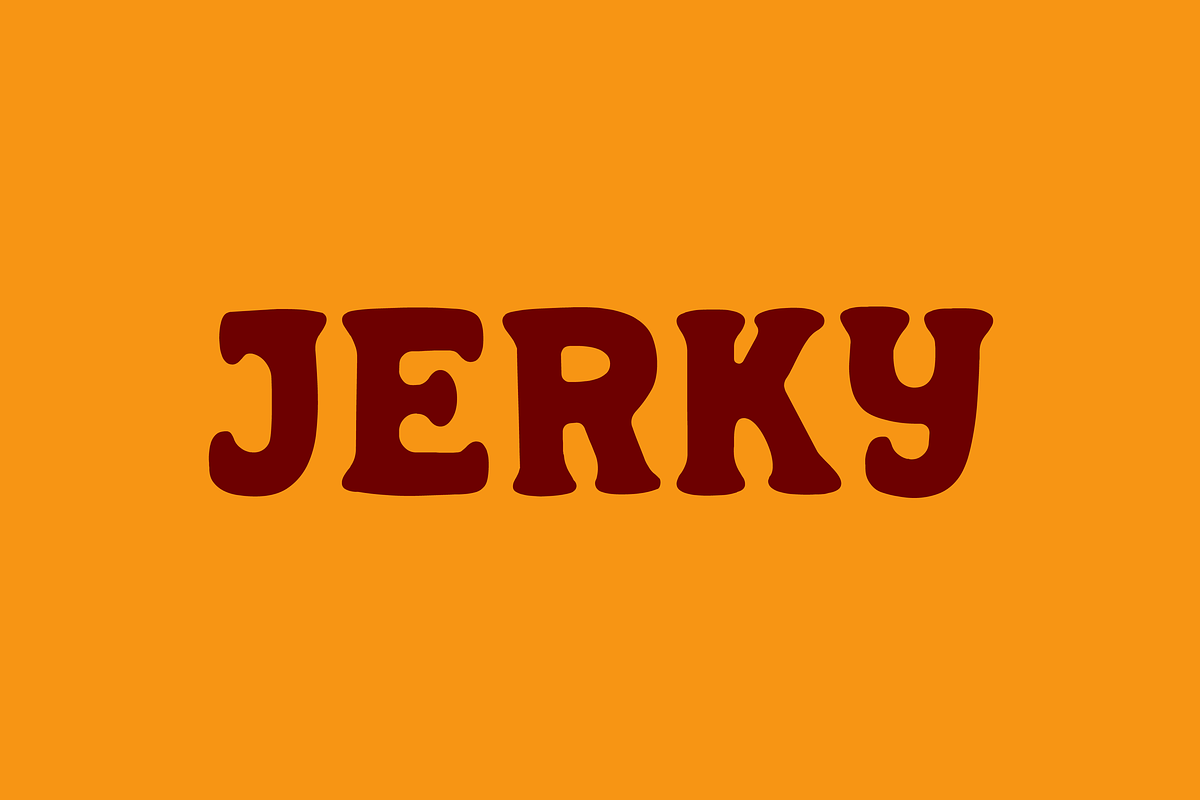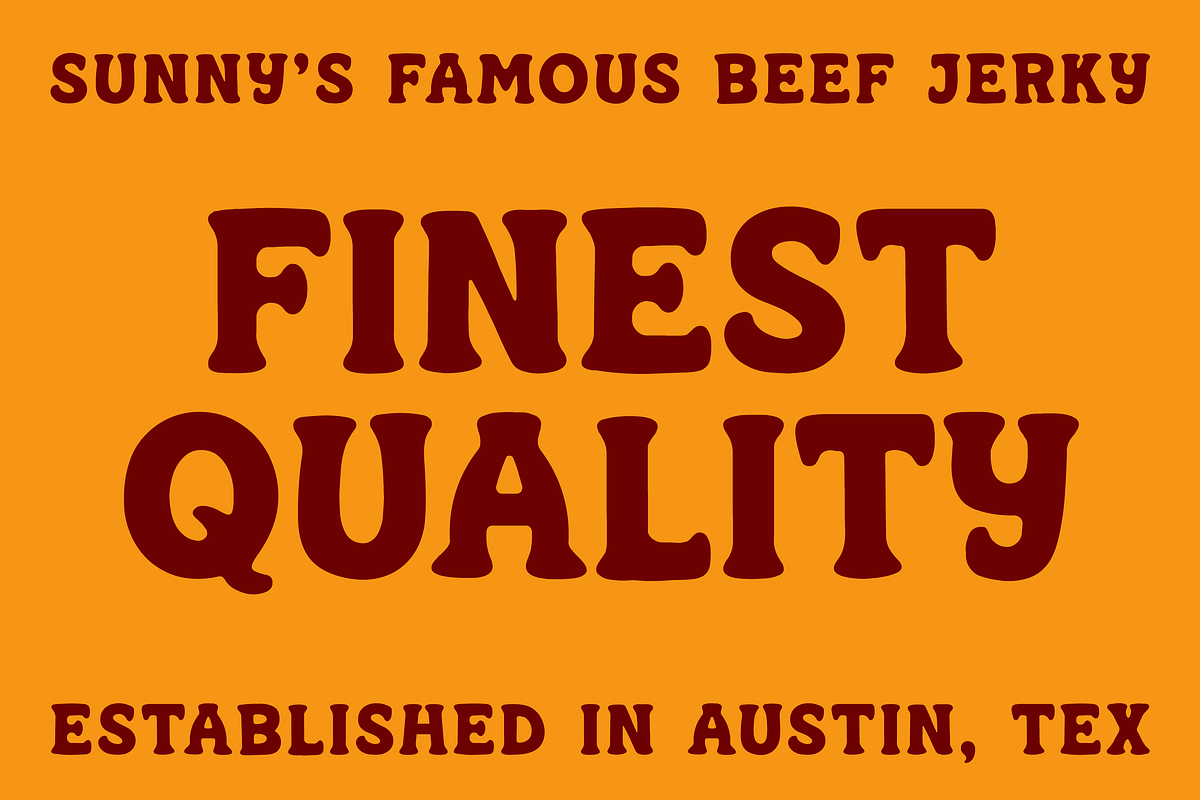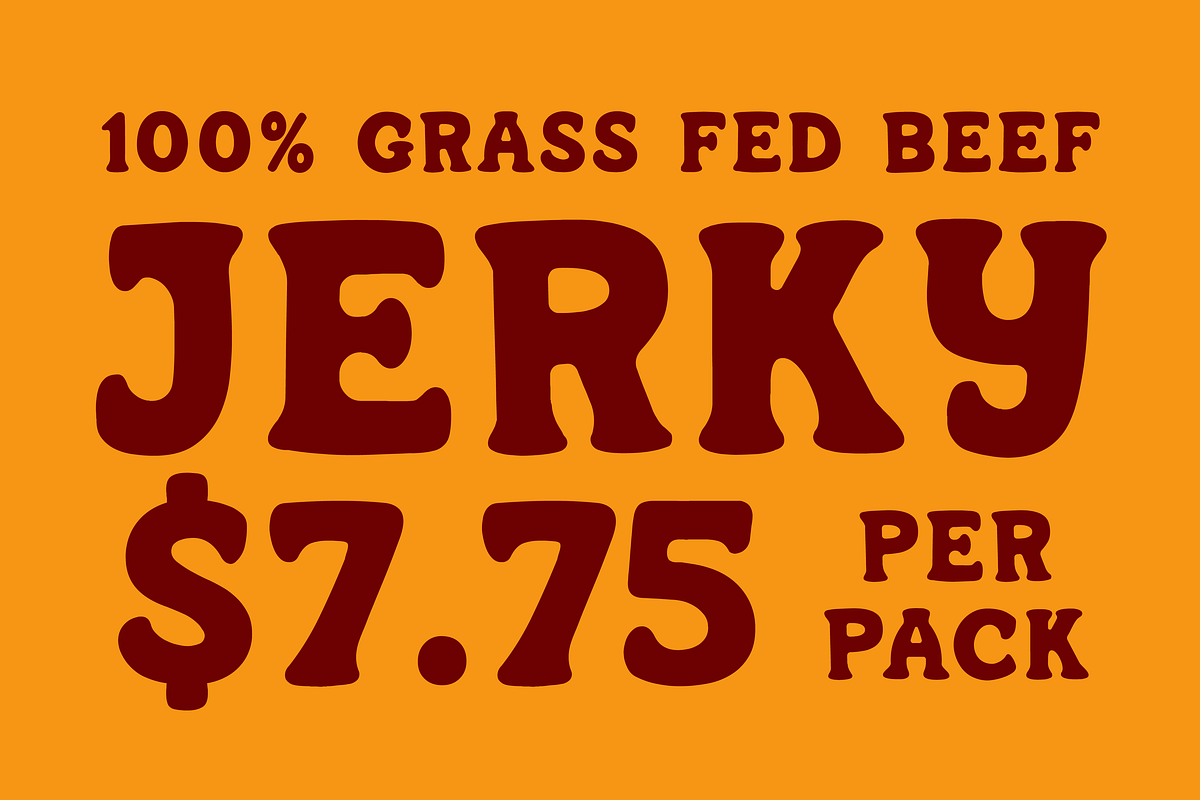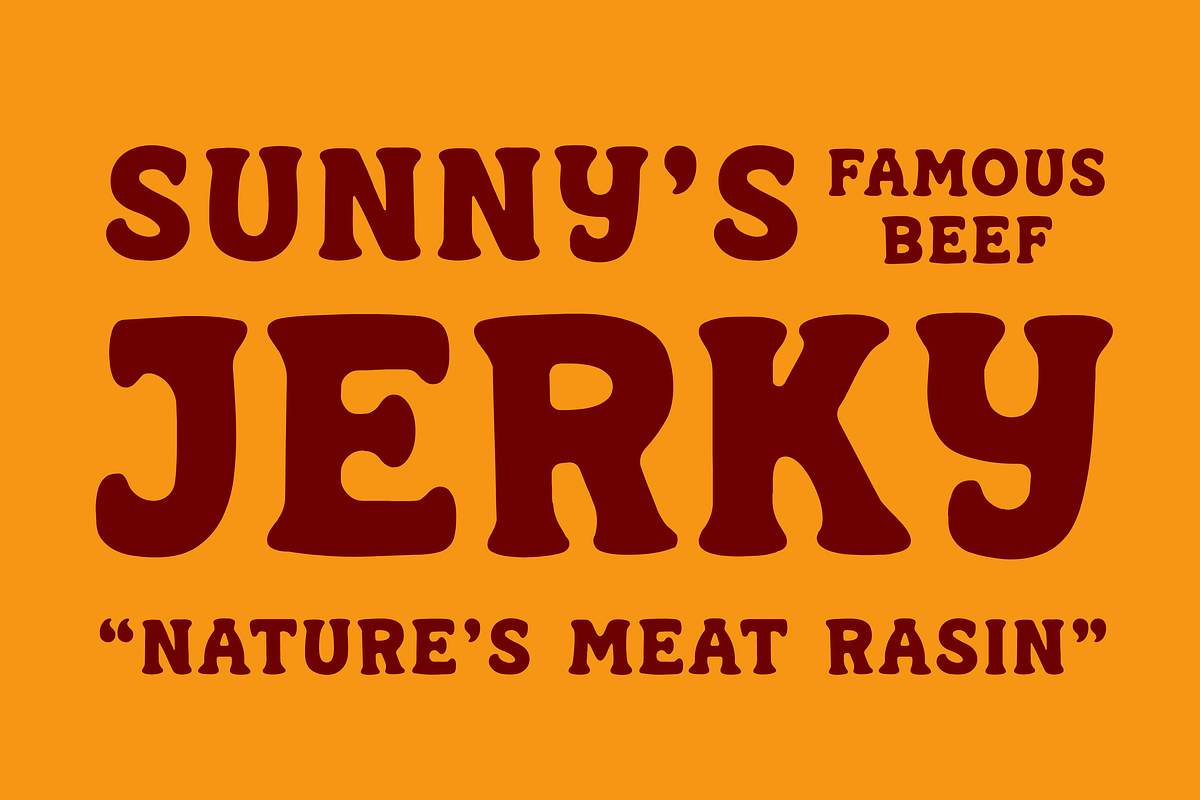
JERKY
Jerky is a hand-drawn bubble serif font with playful, irregular character forms that bring personality and charm to any project. Its quirky shapes and imperfect contours make it ideal for designs that call for a bold, stylized, and eye-catching aesthetic.